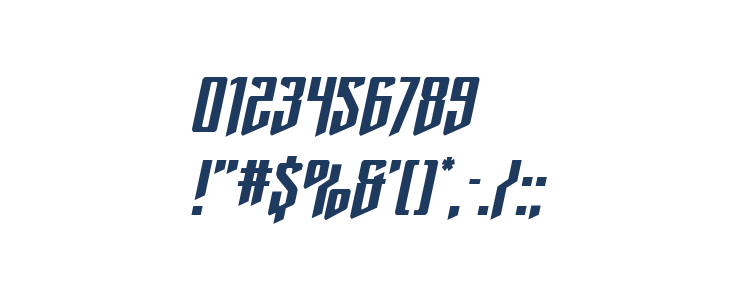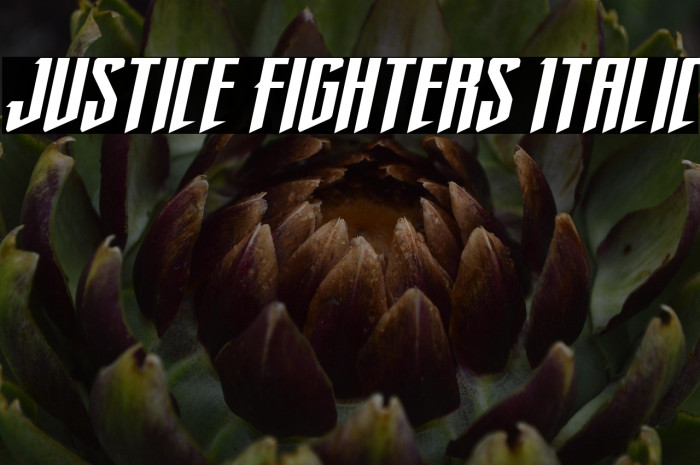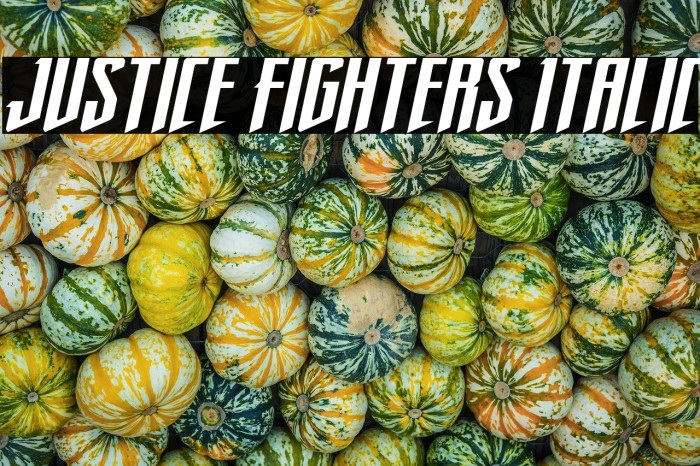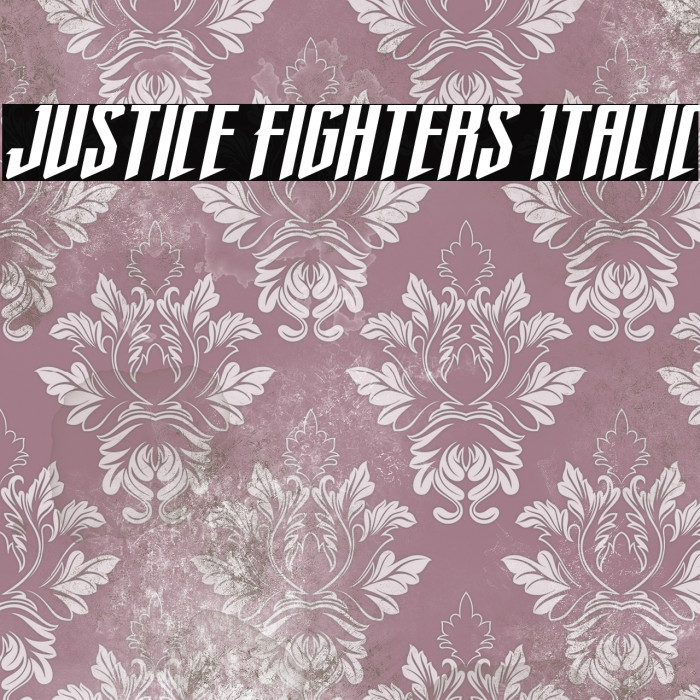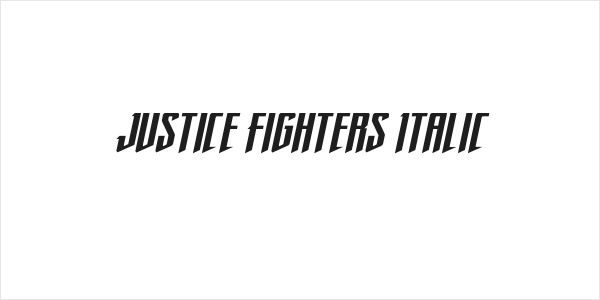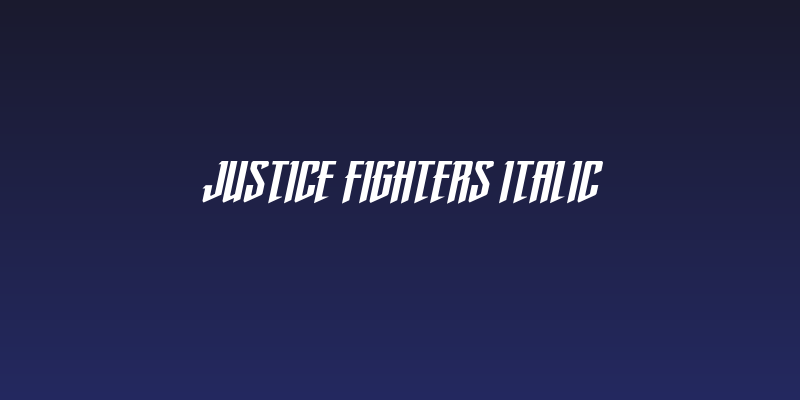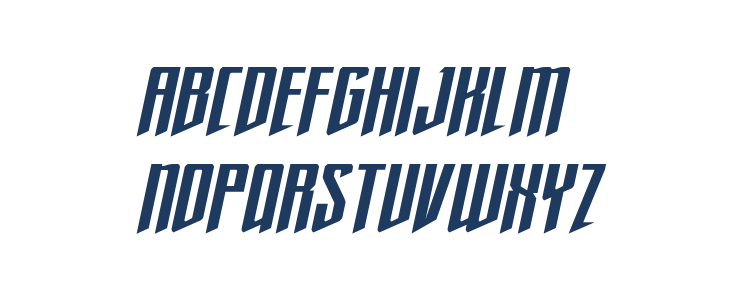
Justice Fighters Italic Font
Justice Fighters Italic Description
This font features a bold and dynamic style with a strong italic slant, giving it a sense of motion and energy. The characters are sharply angled and elongated, creating a futuristic and aggressive appearance. The strokes are thick and consistent, providing a solid and impactful presence. This font is designed to stand out and make a statement, suitable for projects that require a bold and assertive look.
| Proposed Projects | Ideal for action-themed posters, video game titles, sports branding, and dynamic logos. |